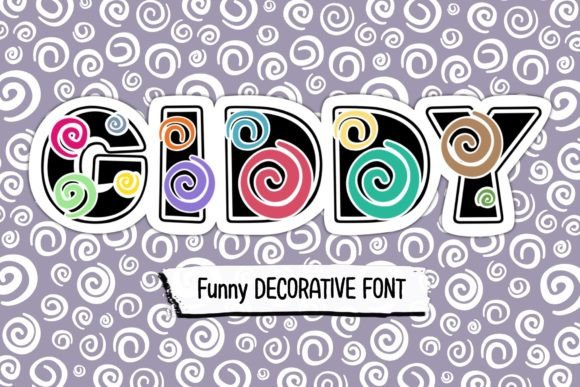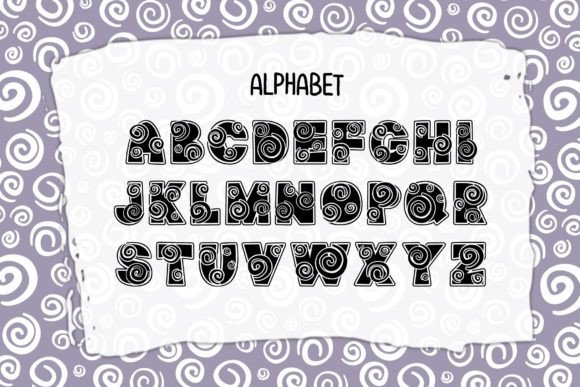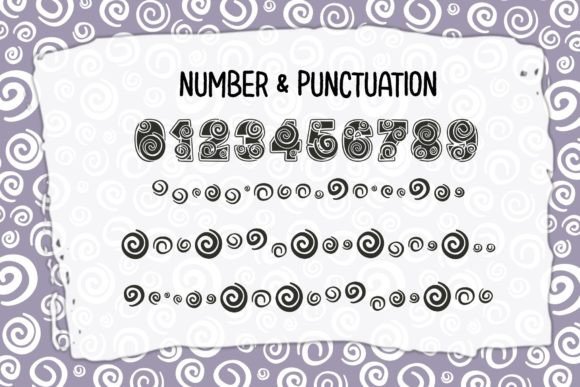
Giddy Font
About the Giddy Font
Experience the unique personality of Giddy Font, a font designed for impact. Giddy is a funny decorative font. The swirling symbols floating out of the letters can make you dizzy. This font is the perfect fit for all of your logos, branding, social media, crafty DIY projects, and much more!
Giddy’s playful energy makes it ideal for headlines, short taglines, and branding projects targeting a young, fun-loving audience. It works exceptionally well on packaging for whimsical products or in social media graphics where its quirky style can shine. However, avoid using it for body text or lengthy content; the swirling details become distracting and hinder readability.
For a balanced design, pair Giddy with a clean sans-serif like Open Sans for body text, providing a strong contrast and visual clarity. Alternatively, a classic serif like Garamond can add a touch of sophistication, grounding the playful nature of Giddy. Consider pairing it with a simple geometric sans-serif to offset its organic forms.
Giddy’s overall personality is best described as light-hearted and whimsical. It projects a sense of fun and childlike wonder, making it unsuitable for projects requiring seriousness or formality.